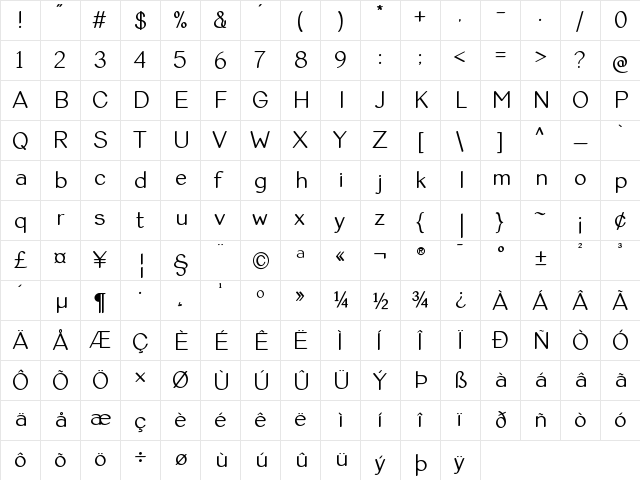
Violina Regular
Design Context for Violina Typeface
Violina is a composed and adaptable typeface that performs quietly and consistently across a wide range of design contexts.
Pro Tip: Use Violina in both headline and body roles to test its range before committing to a single application.